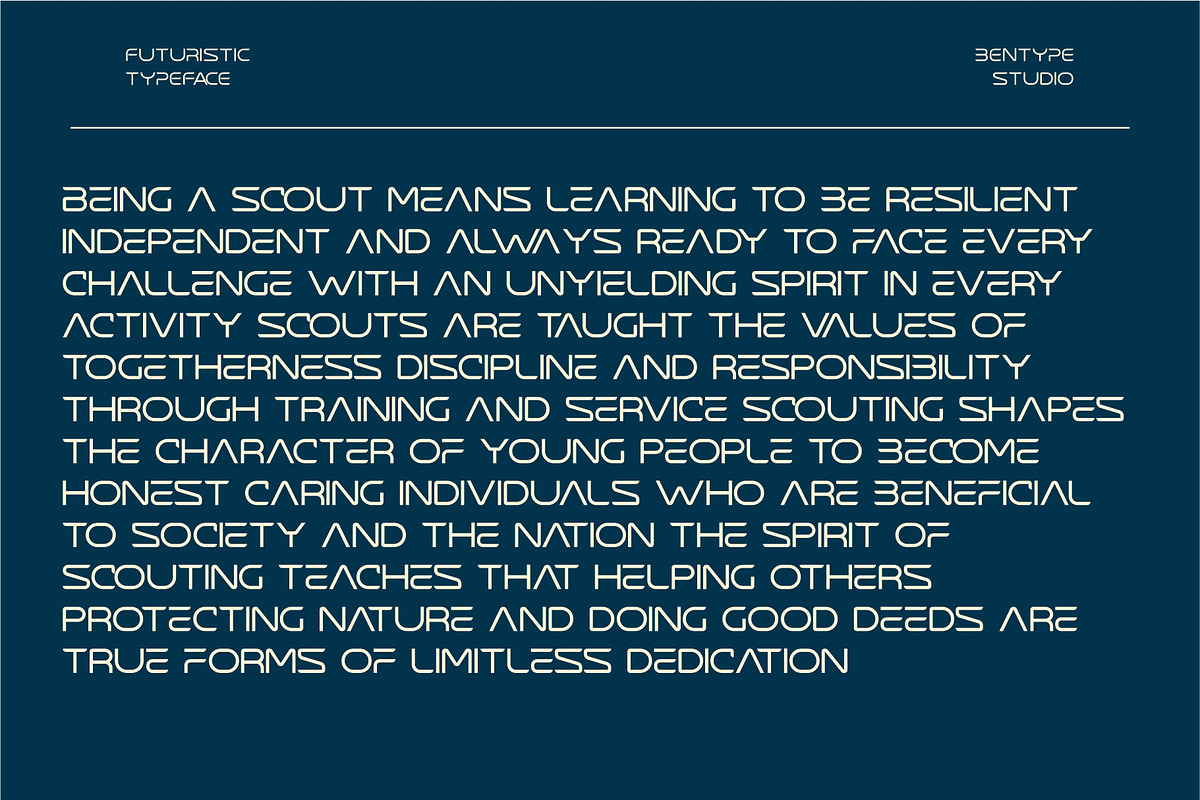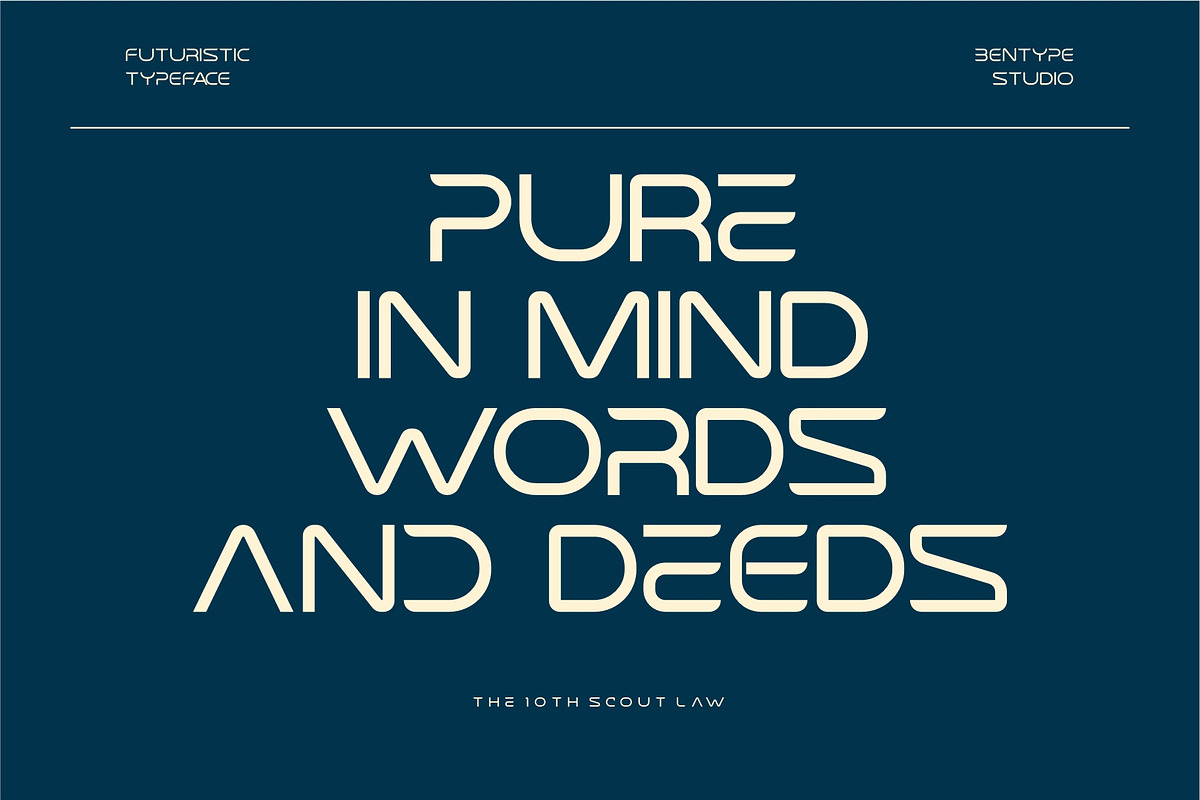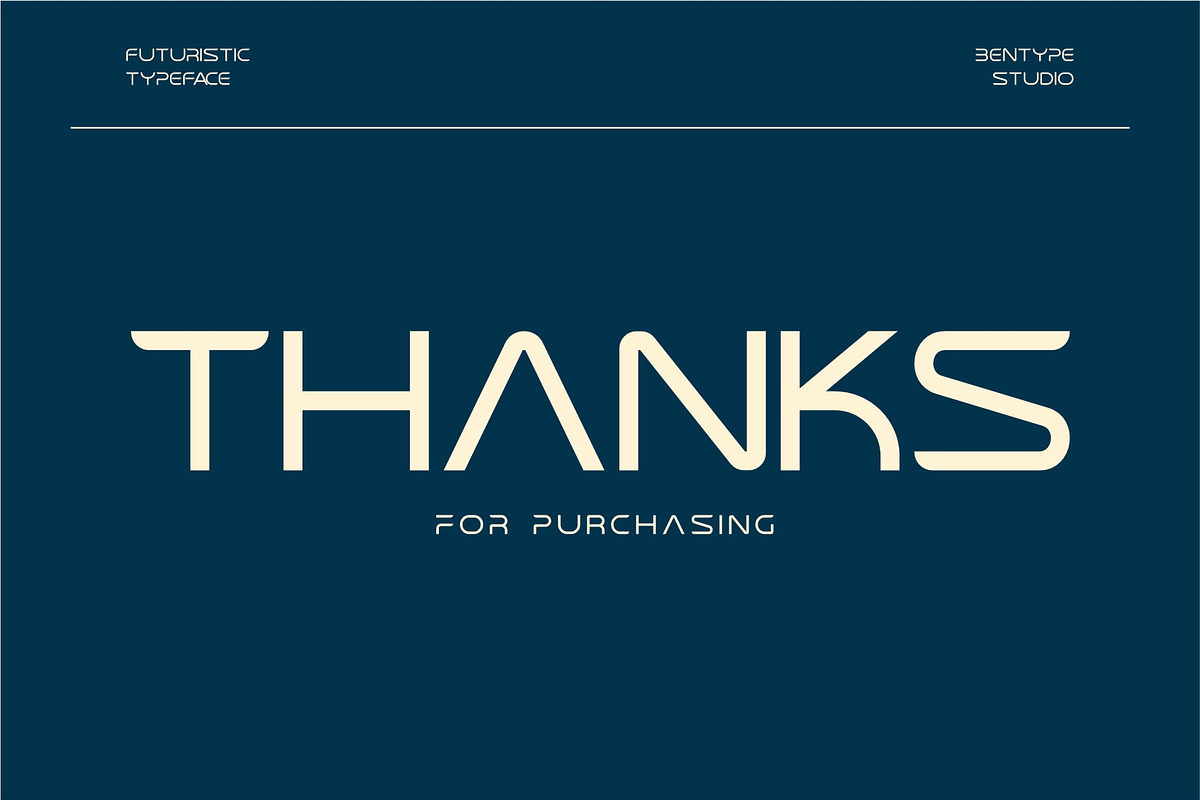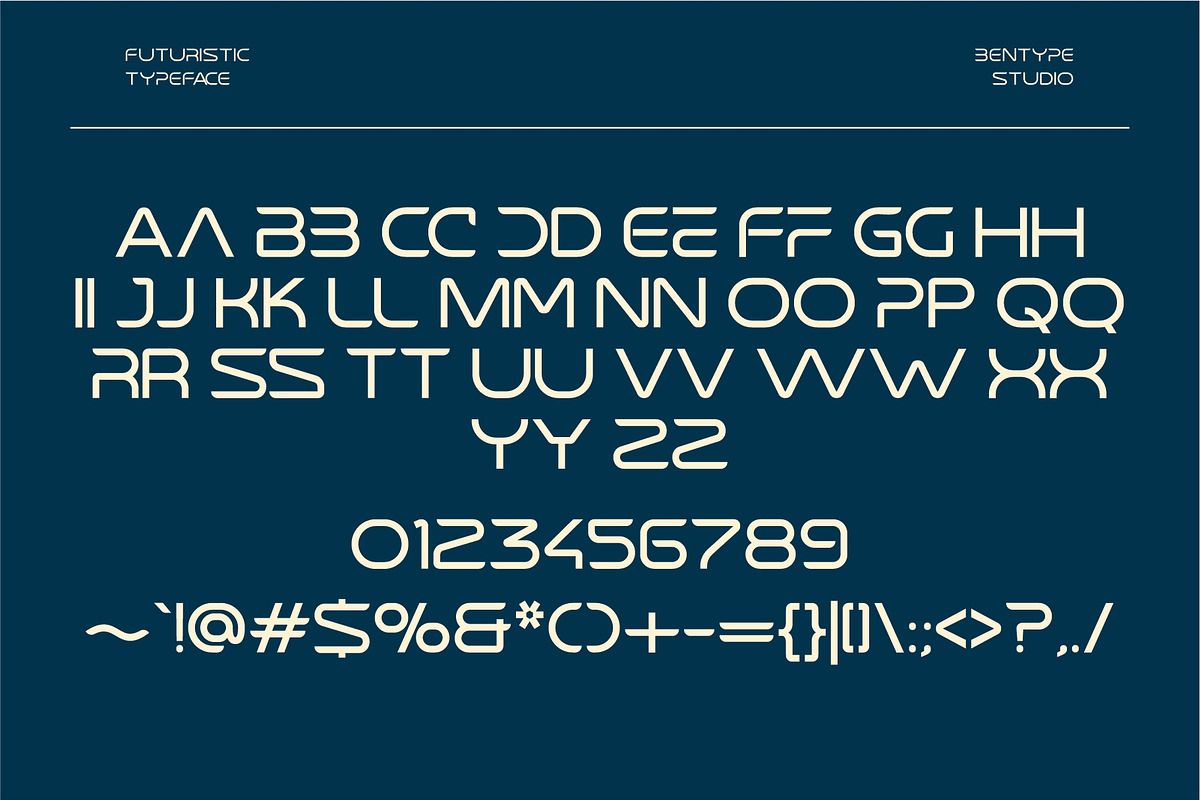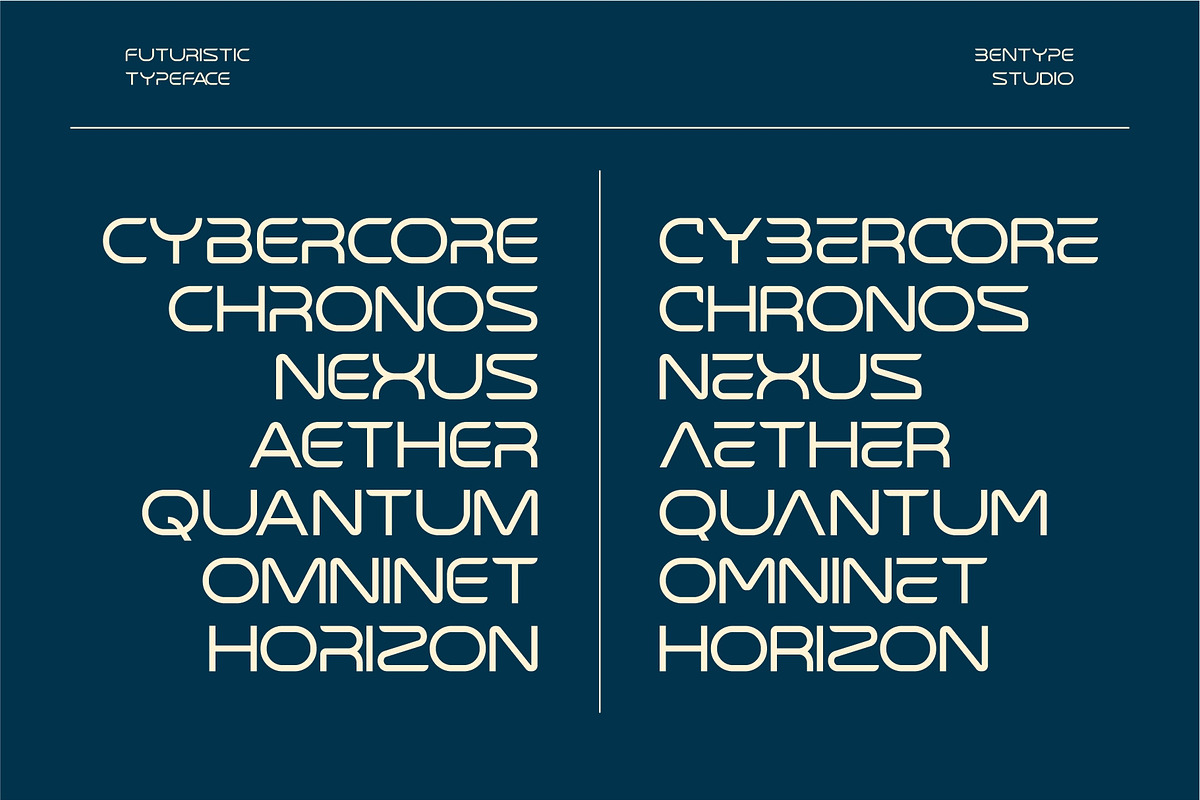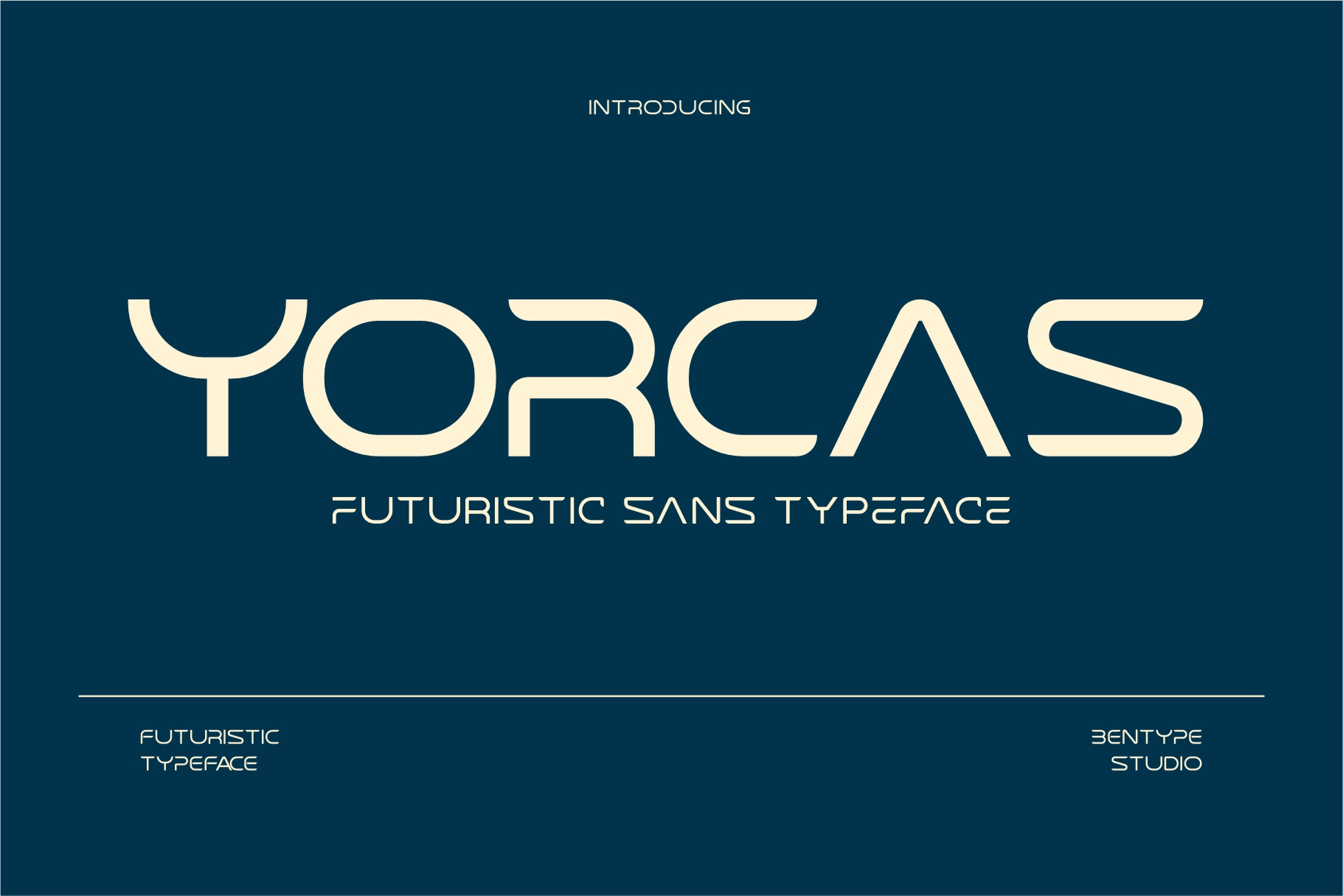
Yorcas - Futuristic Sans Typeface
Yorcas is a font that is designed for the modern and futuristic era. The font with an all cap style, coming with a high tech theme. This font can use for in fields technology, like robot & android, hi-tech, future, virtual reality, outer space, and many others. Use this font for your futuristic modern looking designs as well as your own unique designs!